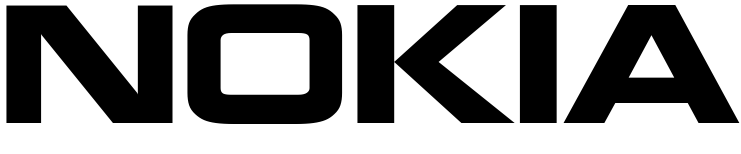
Nokia Font
ElectronicsNokia is a Finnish multinational telecommunications, information technology, and consumer electronics company. It was once the world's largest vendor of mobile phones but has since shifted its focus to network equipment and technology licensing.
The Nokia logo showcases the bold blue Nokia name, with the recognizable tagline "Connecting People" placed below in smaller font. The company's logo font was custom-created by Erik Spiekermann and is imitated by a free font called NokiaKokia, which is only available in uppercase letters and can be downloaded for free from the Fonts Used Section.